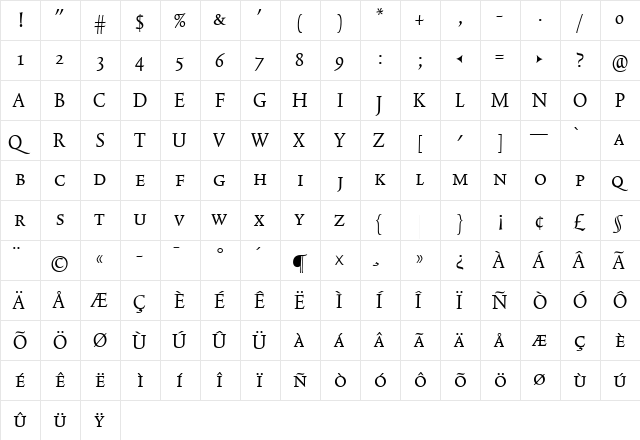
TriniteNo1 RomanCondensedExp
Design Context for TriniteNo1 Typeface
TriniteNo1 is a composed and adaptable typeface that performs quietly and consistently across a wide range of design contexts. The condensed width makes it efficient for tight spaces without sacrificing legibility.